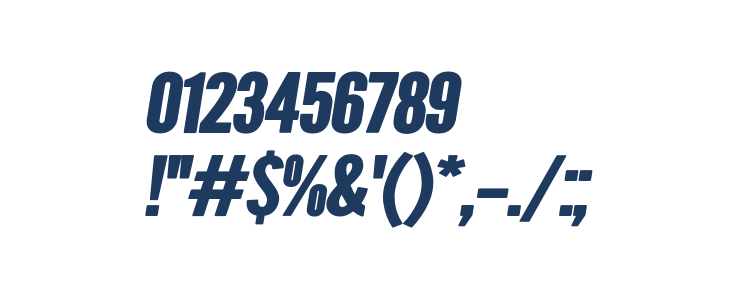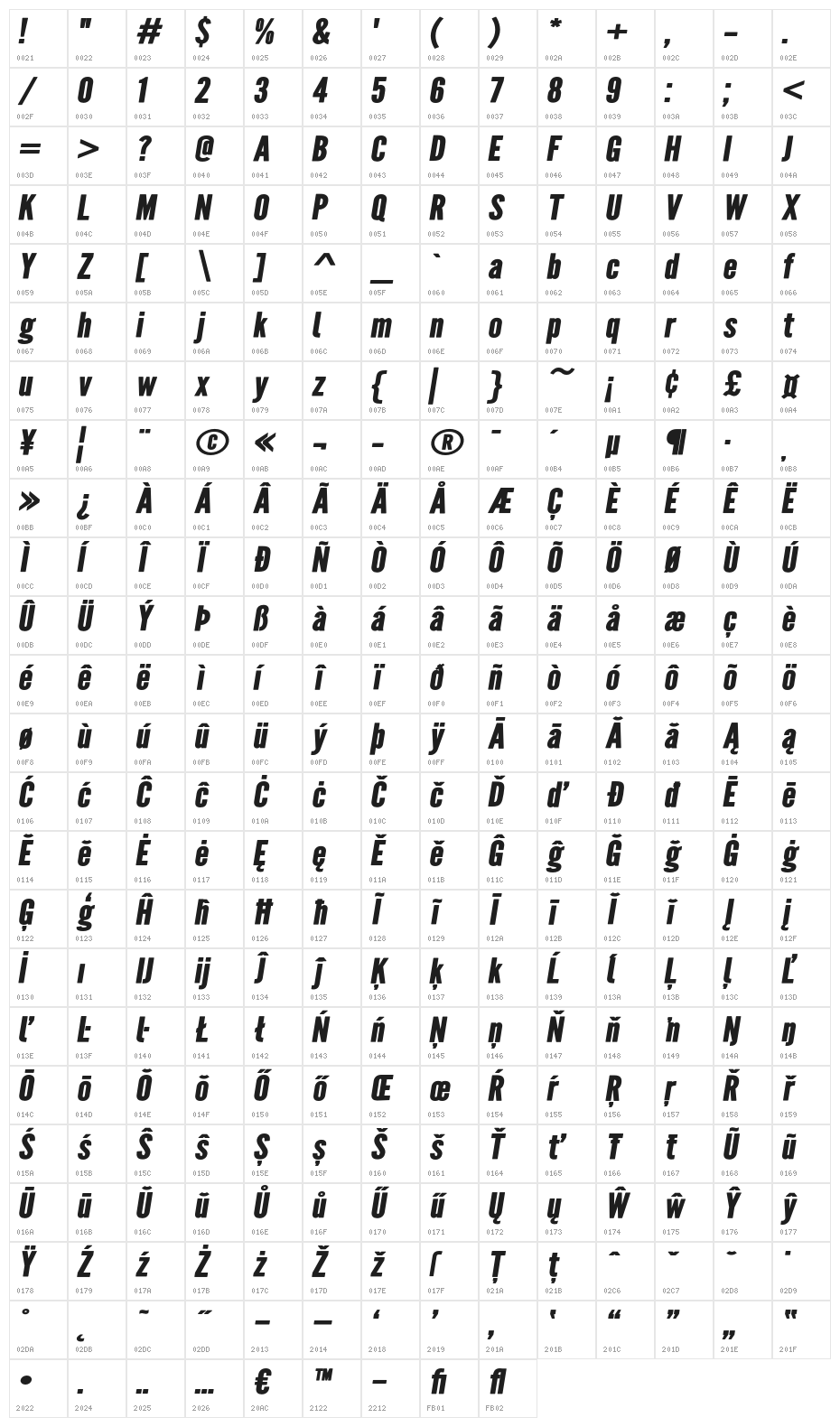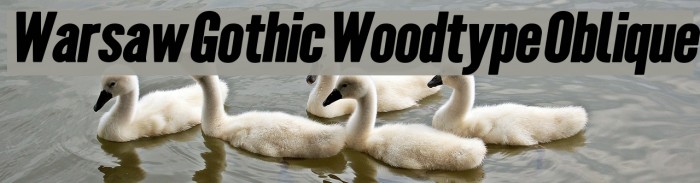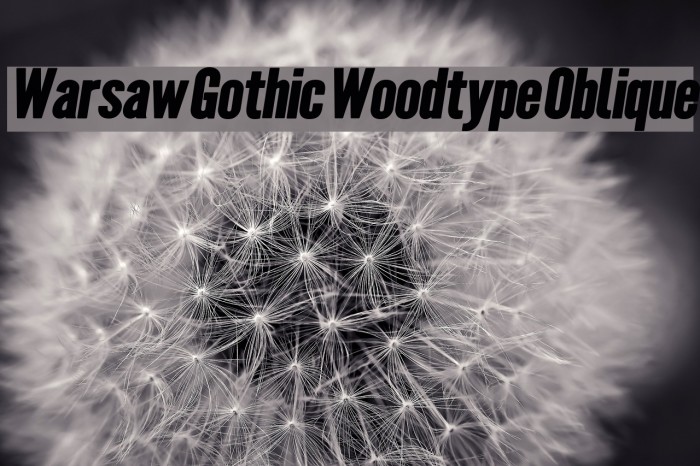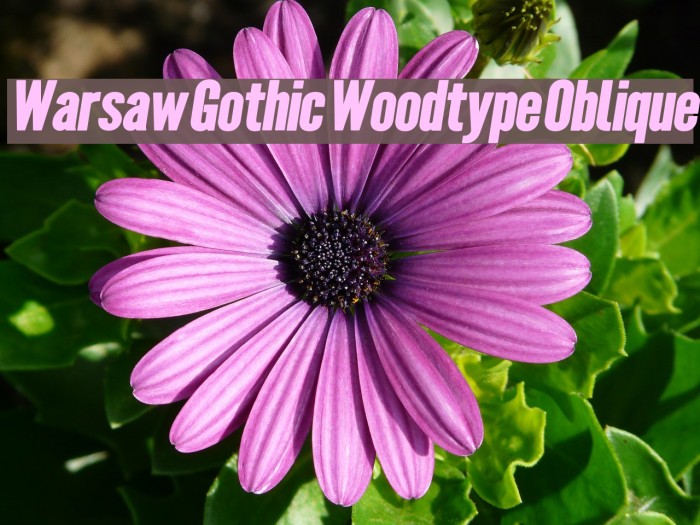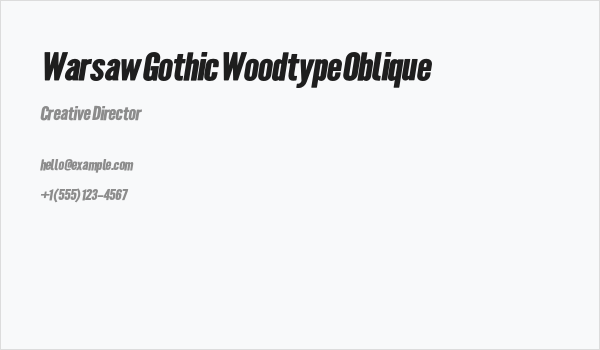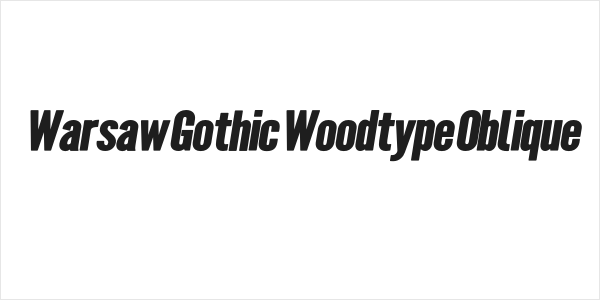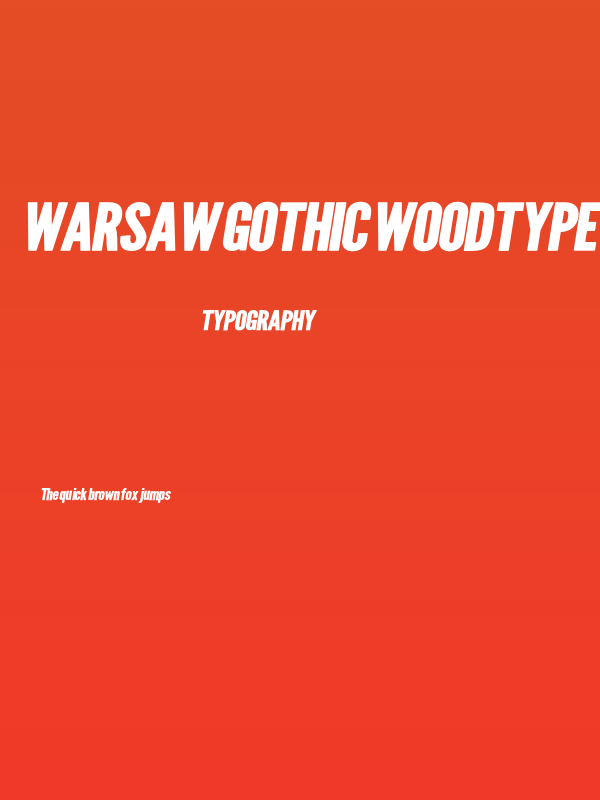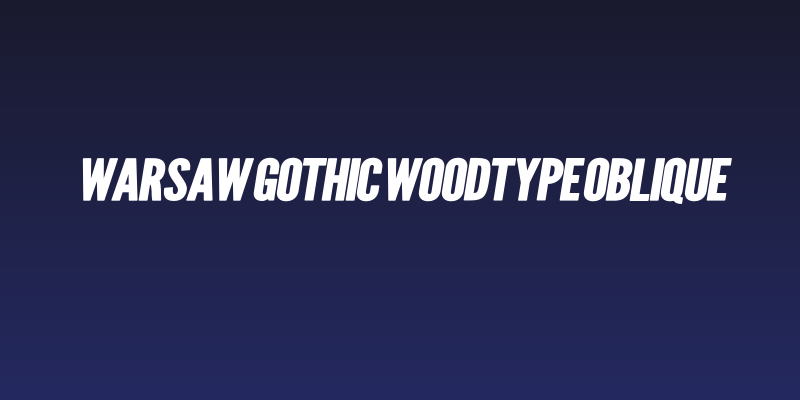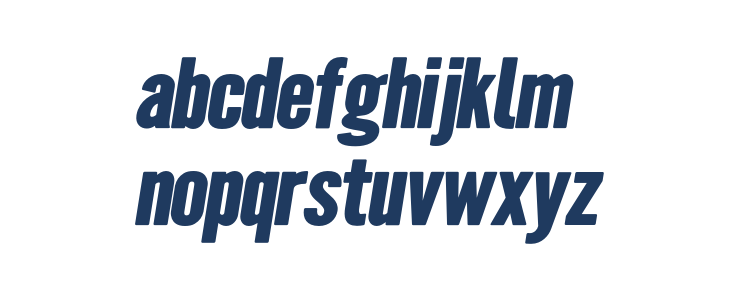
Warsaw Gothic Woodtype Oblique Font
Warsaw Gothic Woodtype Oblique Description
This font features a bold and dynamic style with a strong oblique slant, giving it a sense of movement and urgency. The characters are robust and impactful, with thick strokes that convey strength and confidence. The uppercase and lowercase letters maintain a consistent width, ensuring uniformity across the text. The numerals and special characters are designed to match the boldness of the alphabet, making them stand out effectively. The overall appearance is reminiscent of vintage woodtype, adding a touch of nostalgia while remaining modern and versatile.
| Proposed Projects | Ideal for poster designs, branding projects, headlines, and any design that requires a strong, eye-catching typeface. |